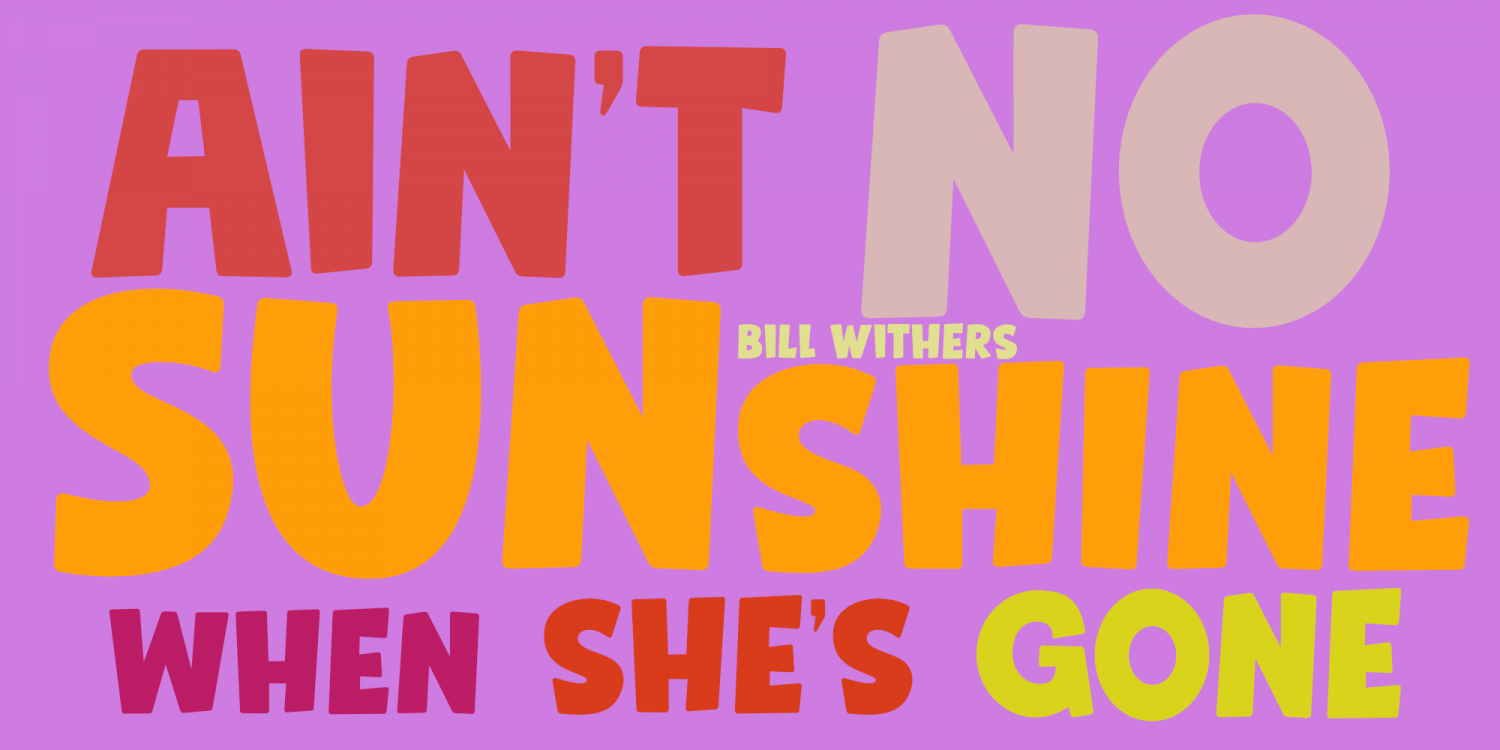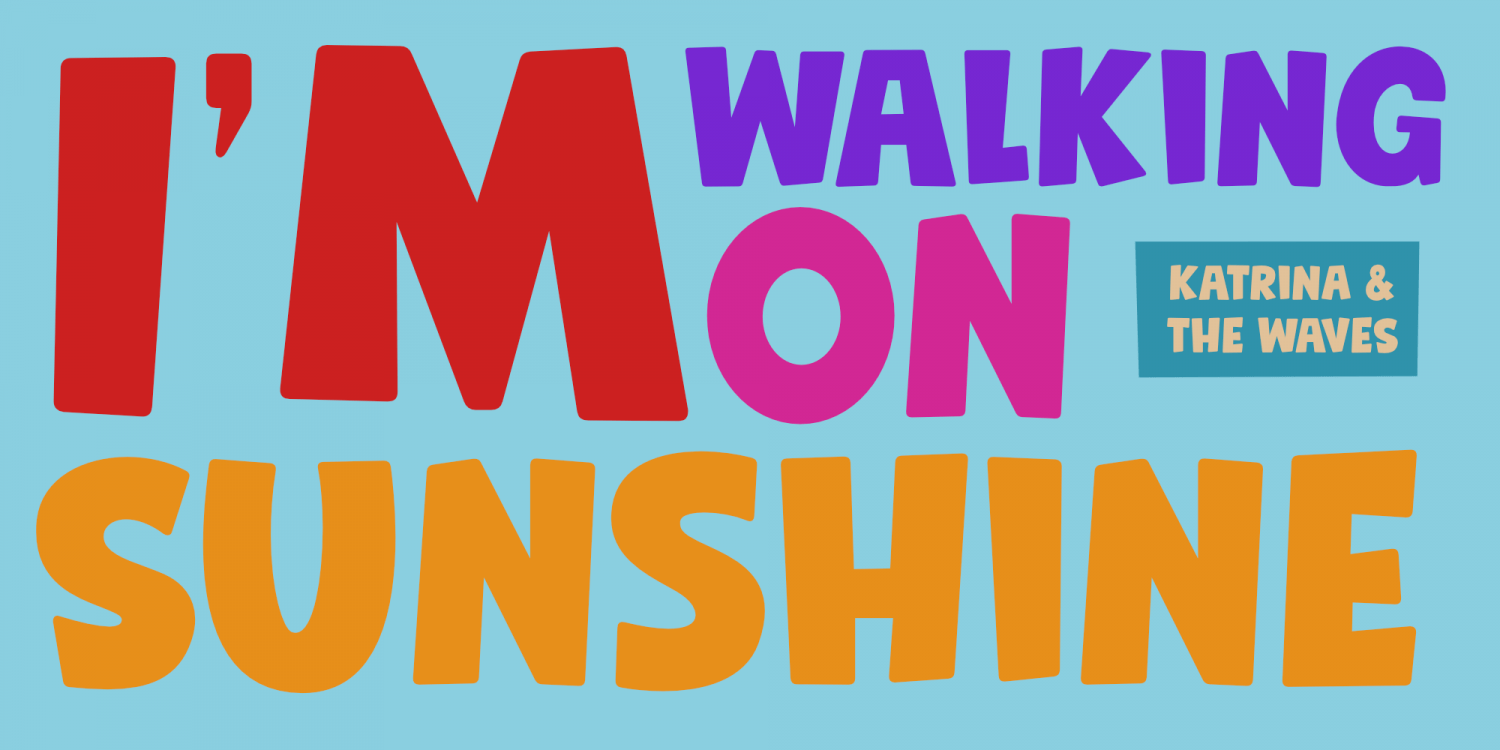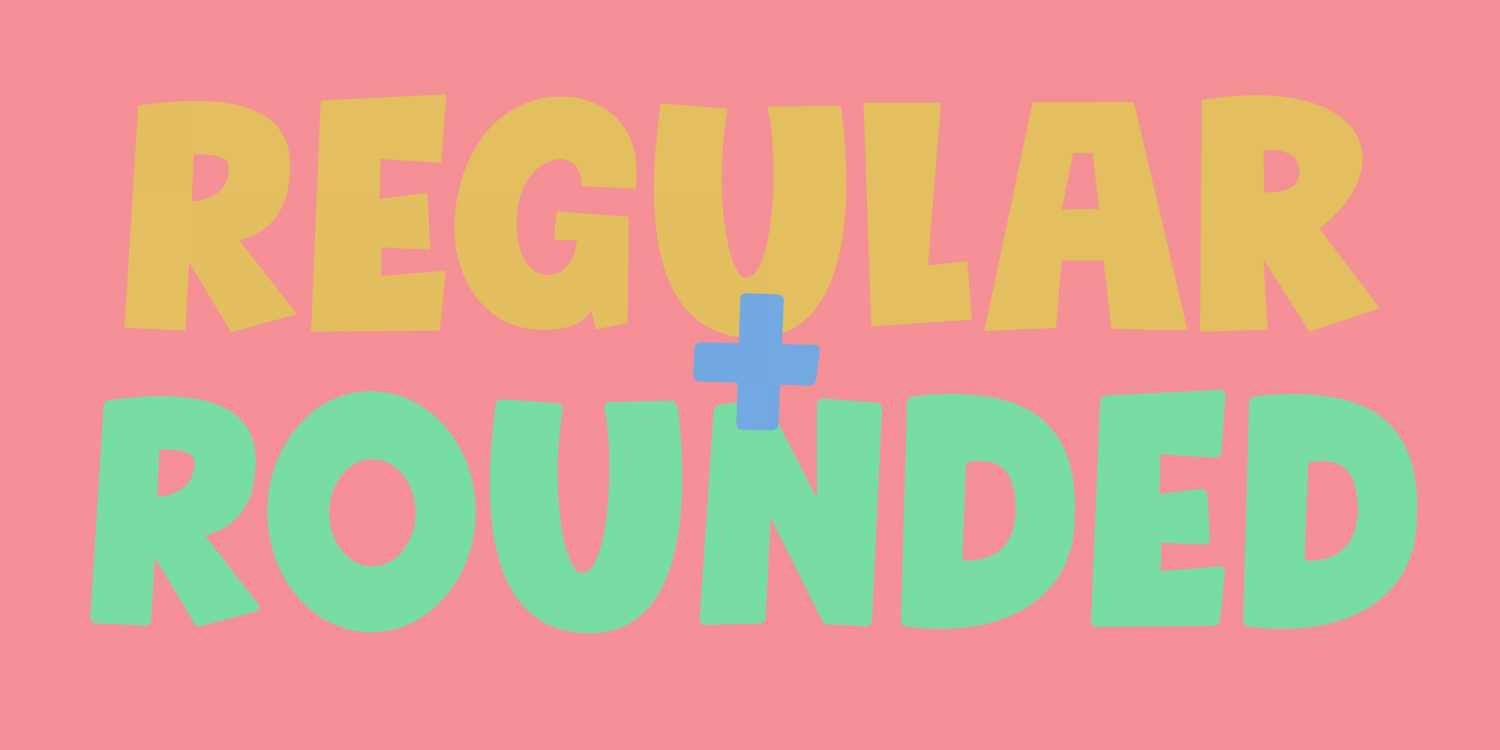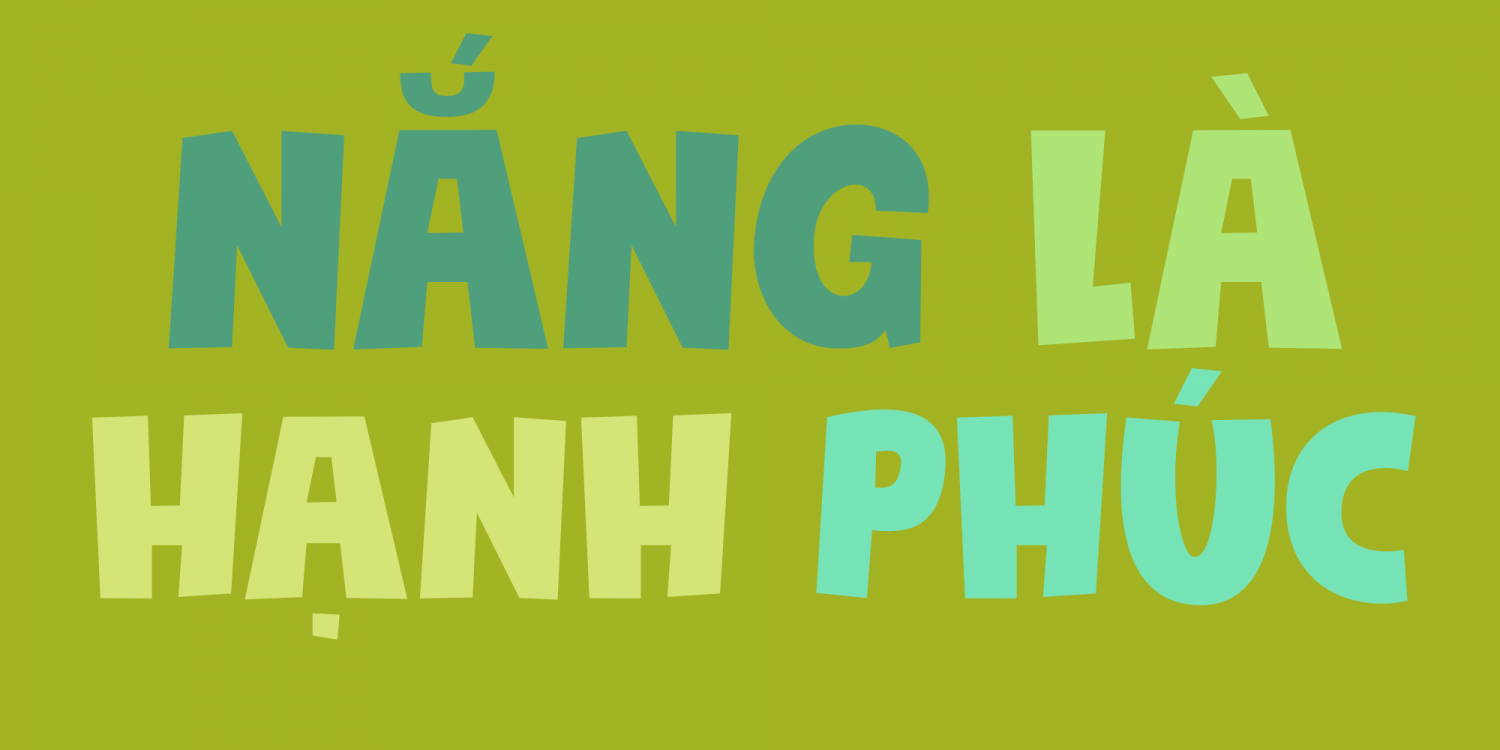
About Sunshine Delivery
After a long period of wind, rain and cold, summer has finally arrived. It almost felt as if the sunny weather came as a special delivery! Sunshine Delivery is a handmade display font. It comes in a regular, angular version and a rounded one. Need Vietnamese…